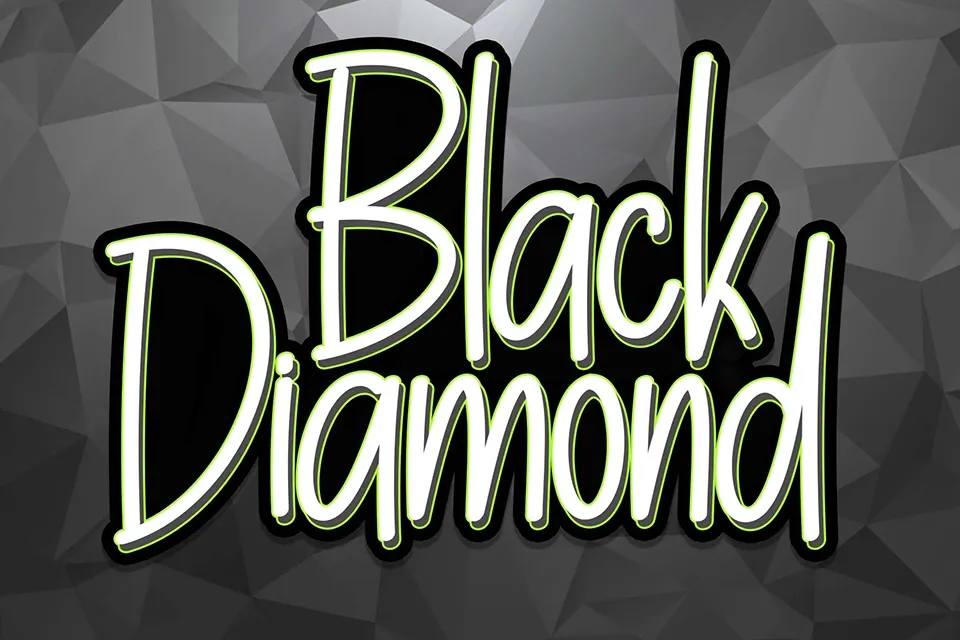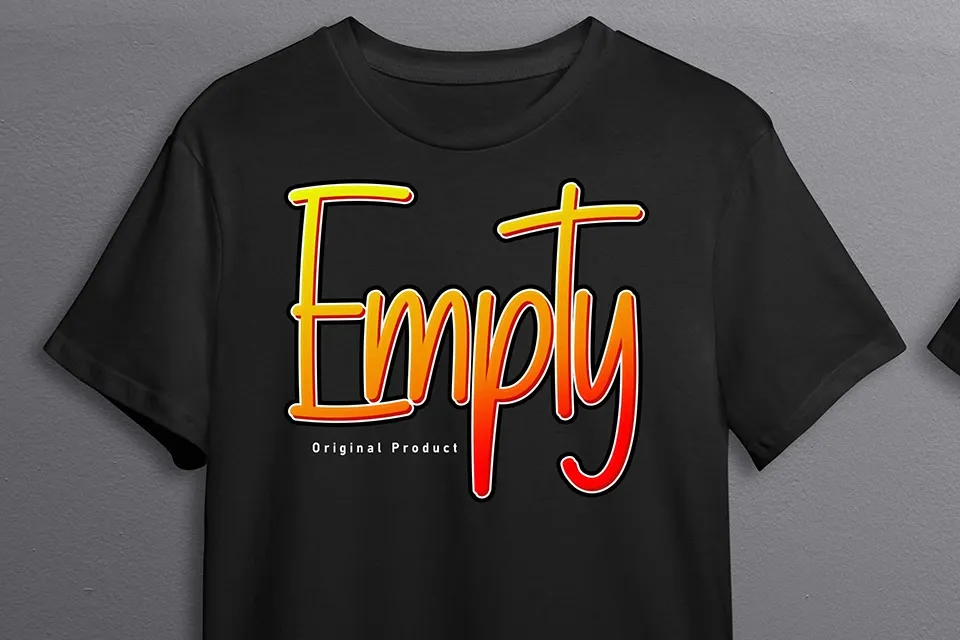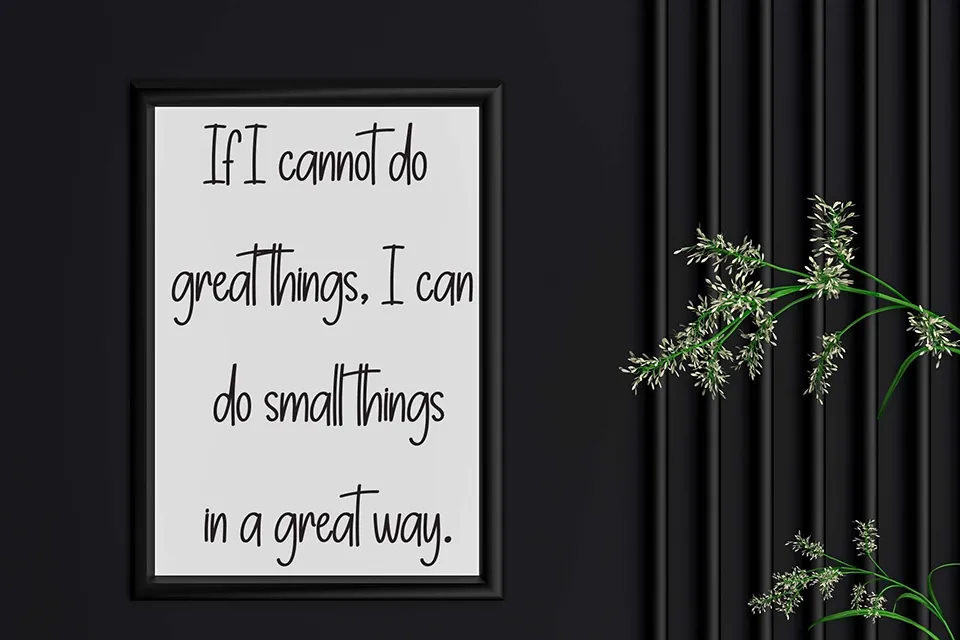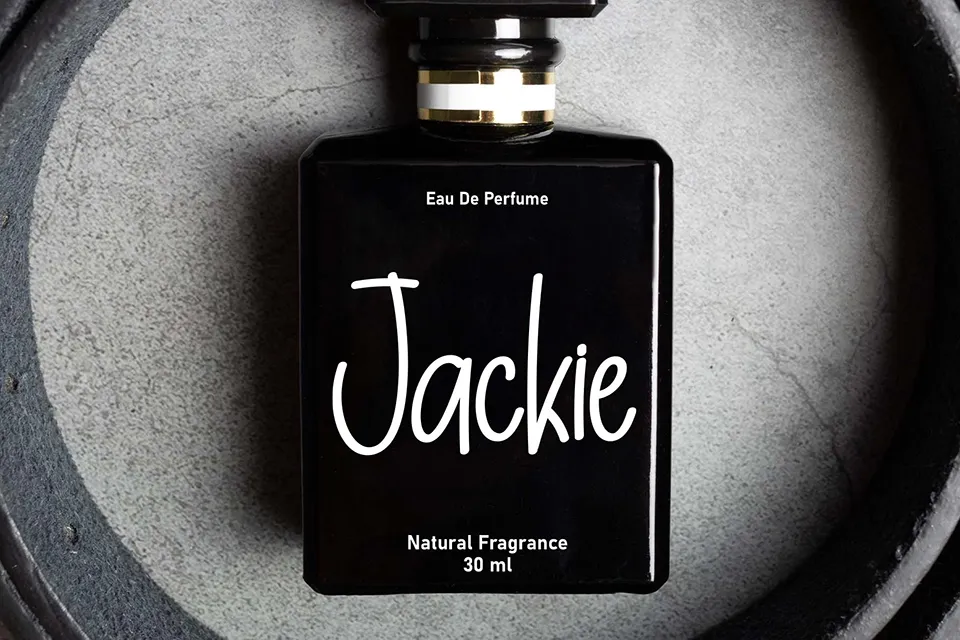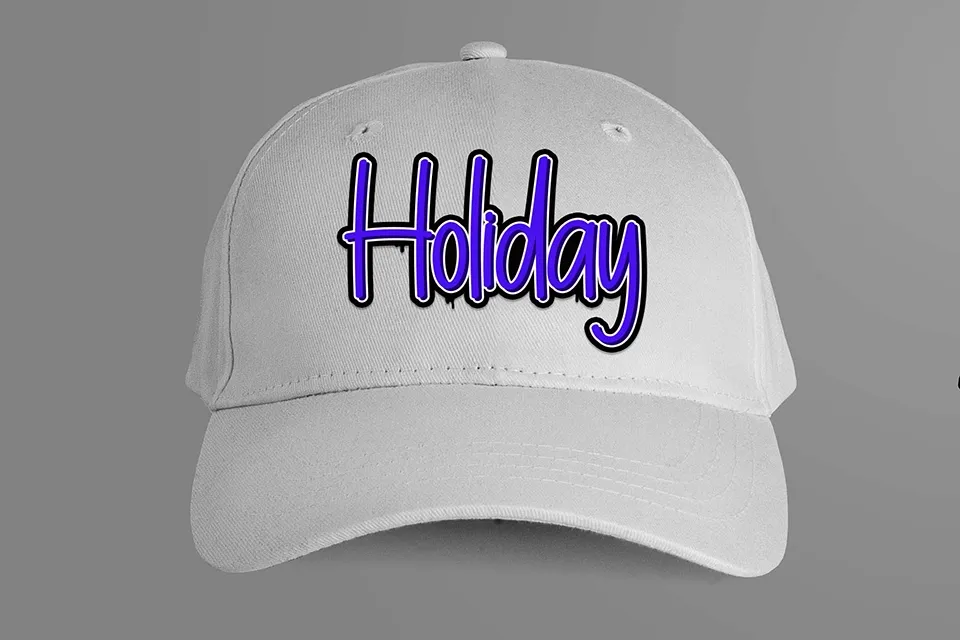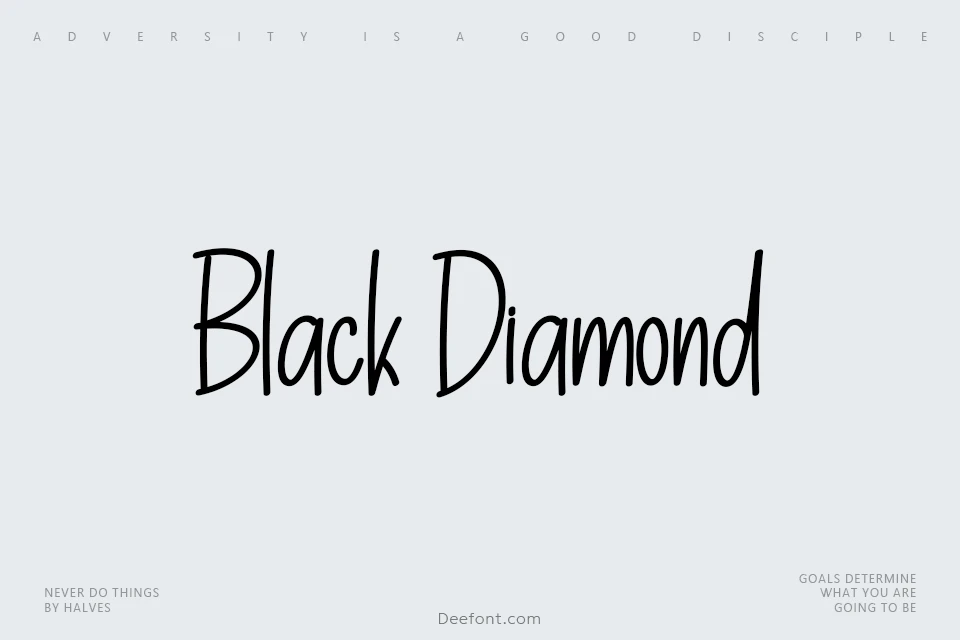
Black Diamond Font
Black Diamond Font is a clean and tidy handwritten font that exudes simplicity and elegance. Its smooth, well-defined characters make it an ideal choice for projects requiring a clear, legible, and stylish handwritten touch. Perfect for wall displays, wedding invitations, social media posts, logos, advertisements, product packaging, labels, photography, watermarks, and any project that requires tasteful handwriting.